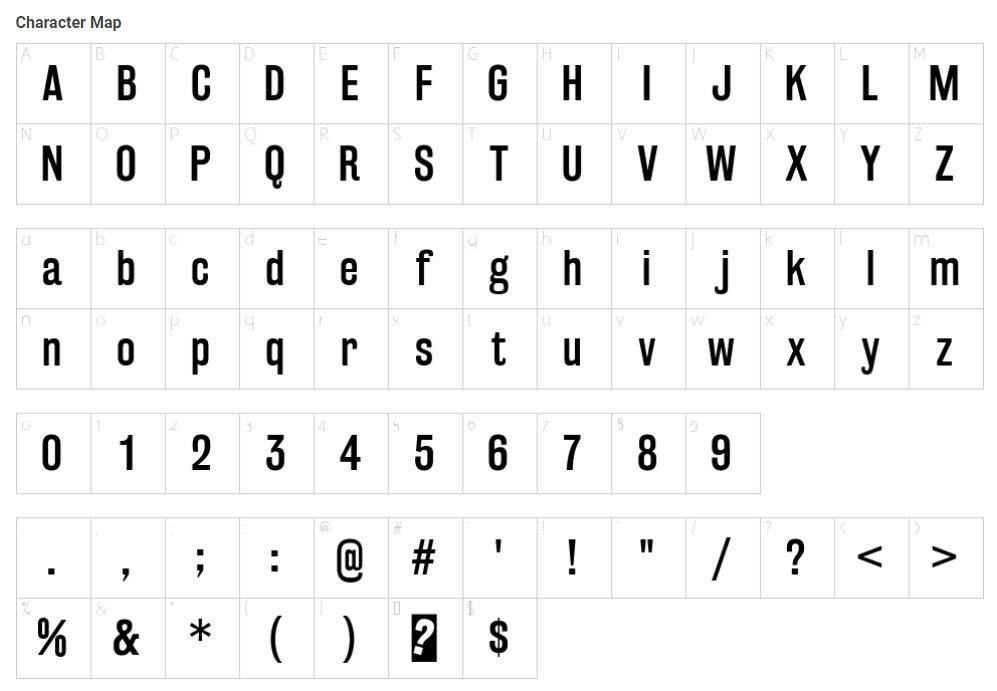
Rakesly
The font is a nice font and free to use. The font was inspired by grotesque headliners from the 19th century. The font includes 6 weights plus italics and comes with a free commercial use desktop license.